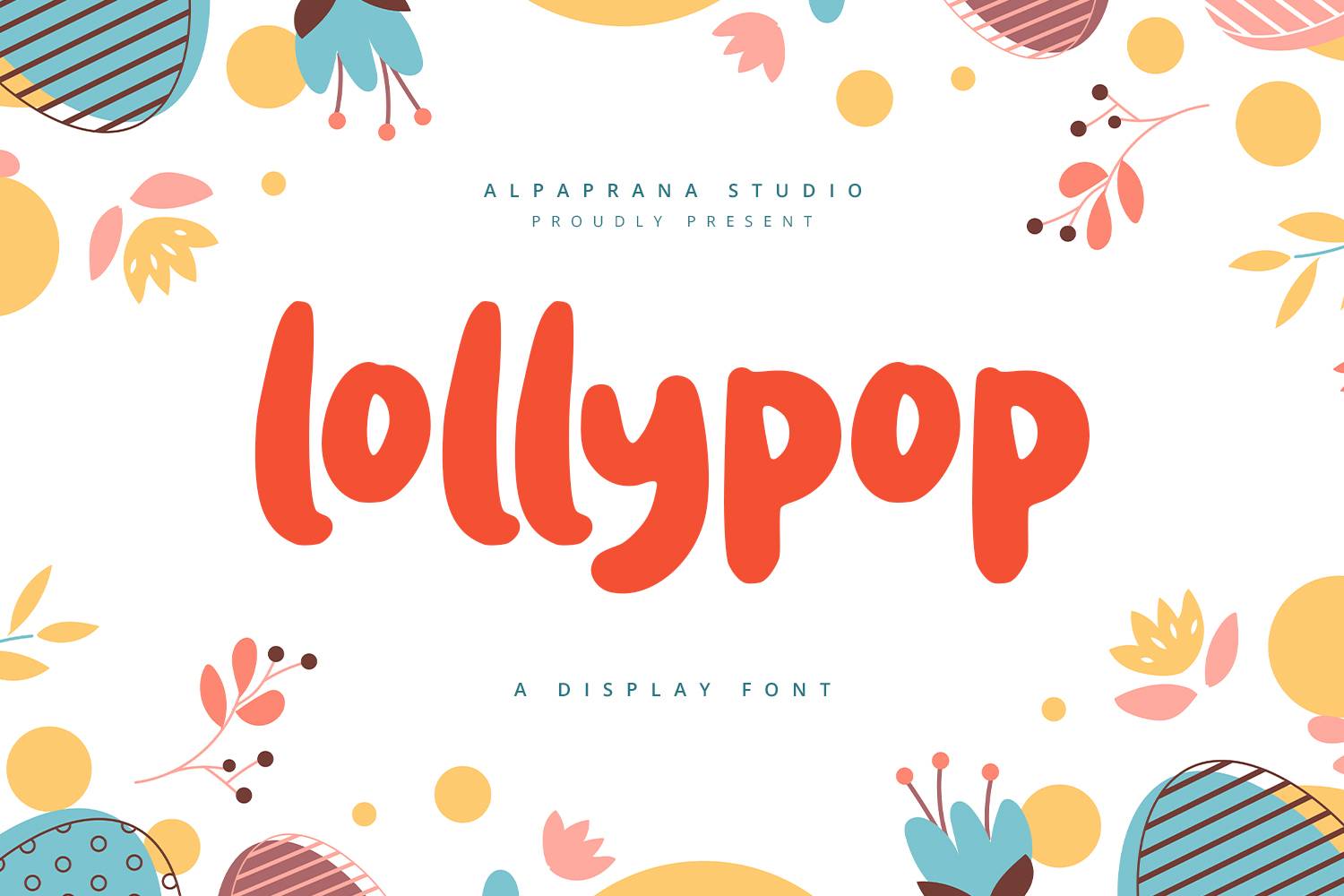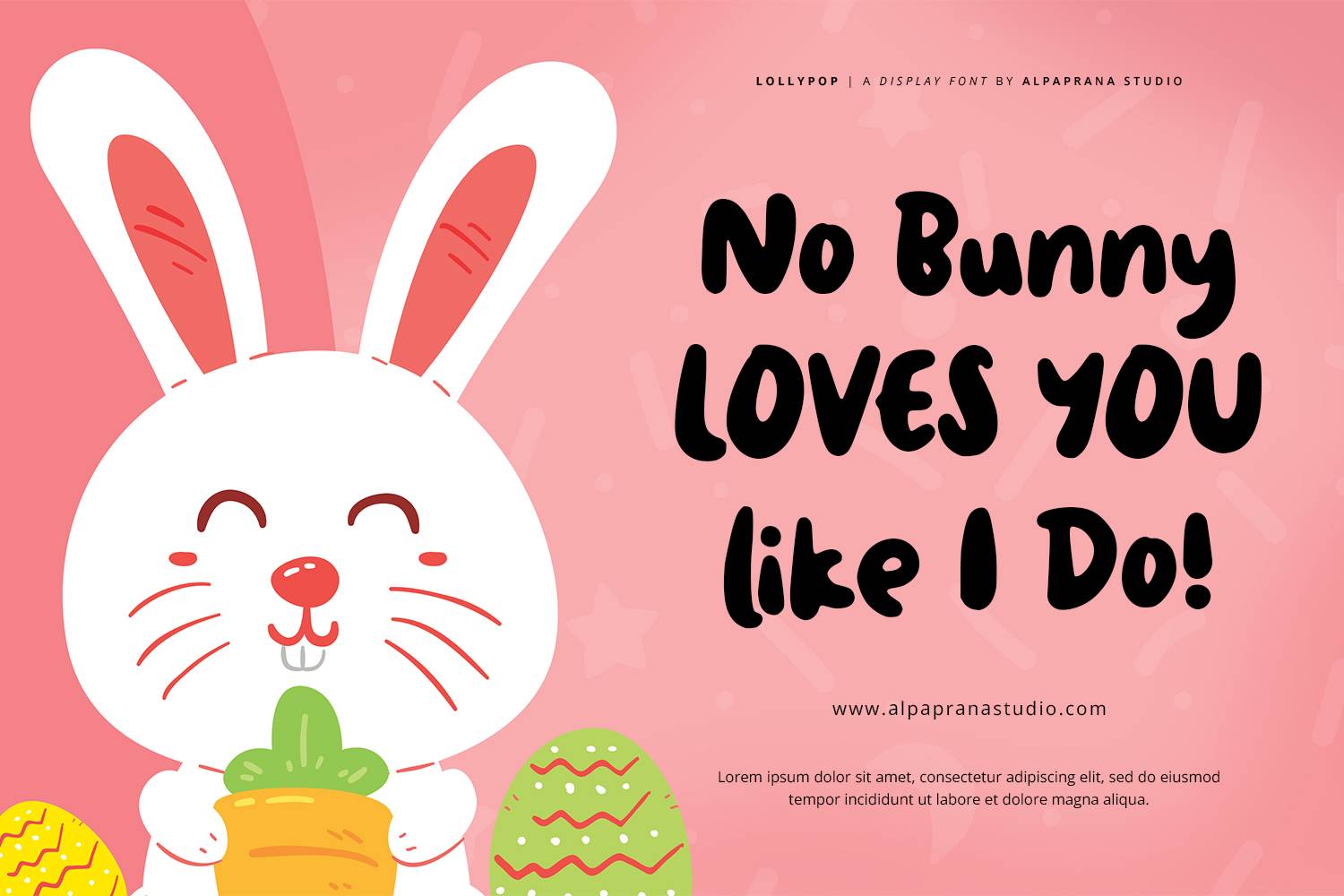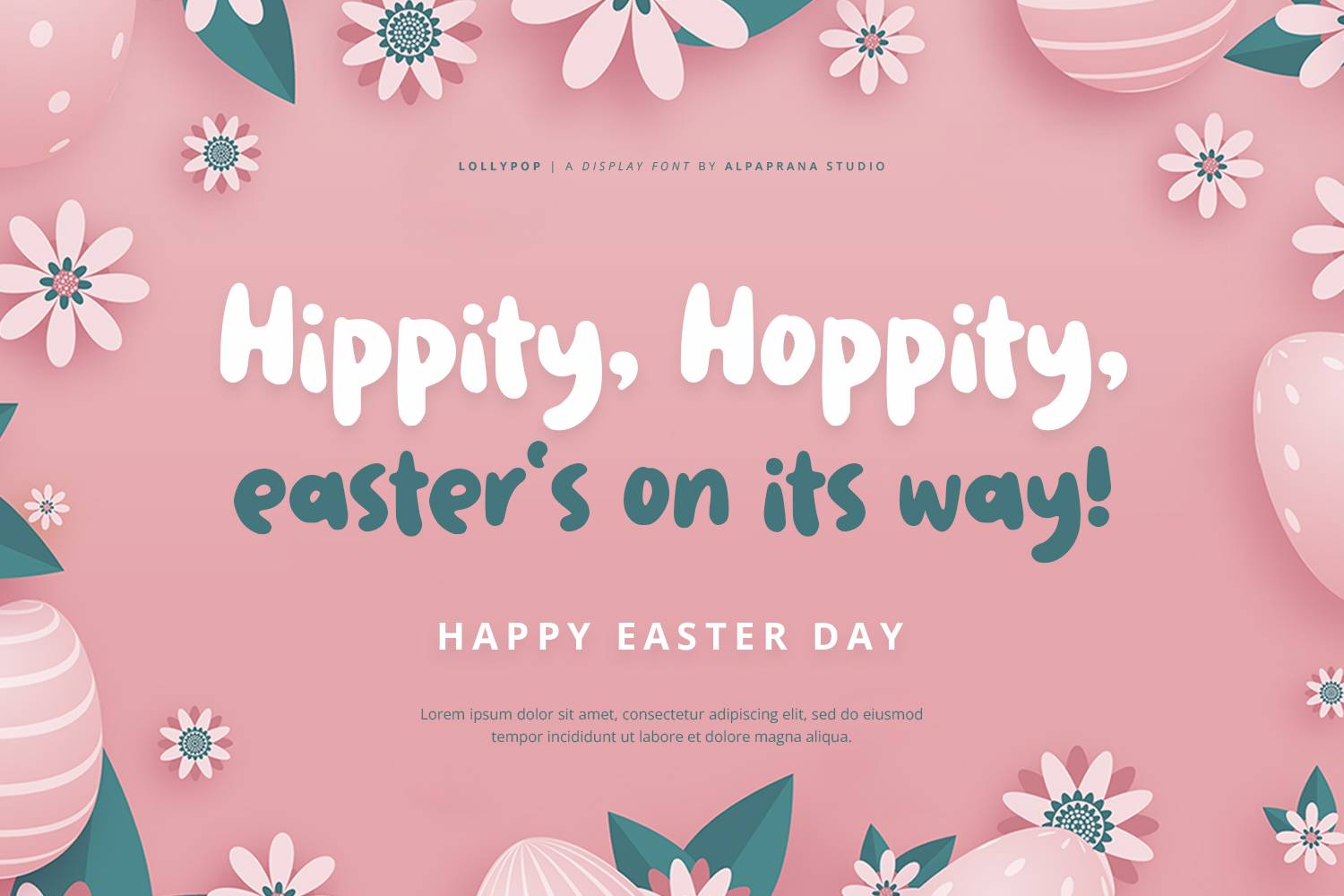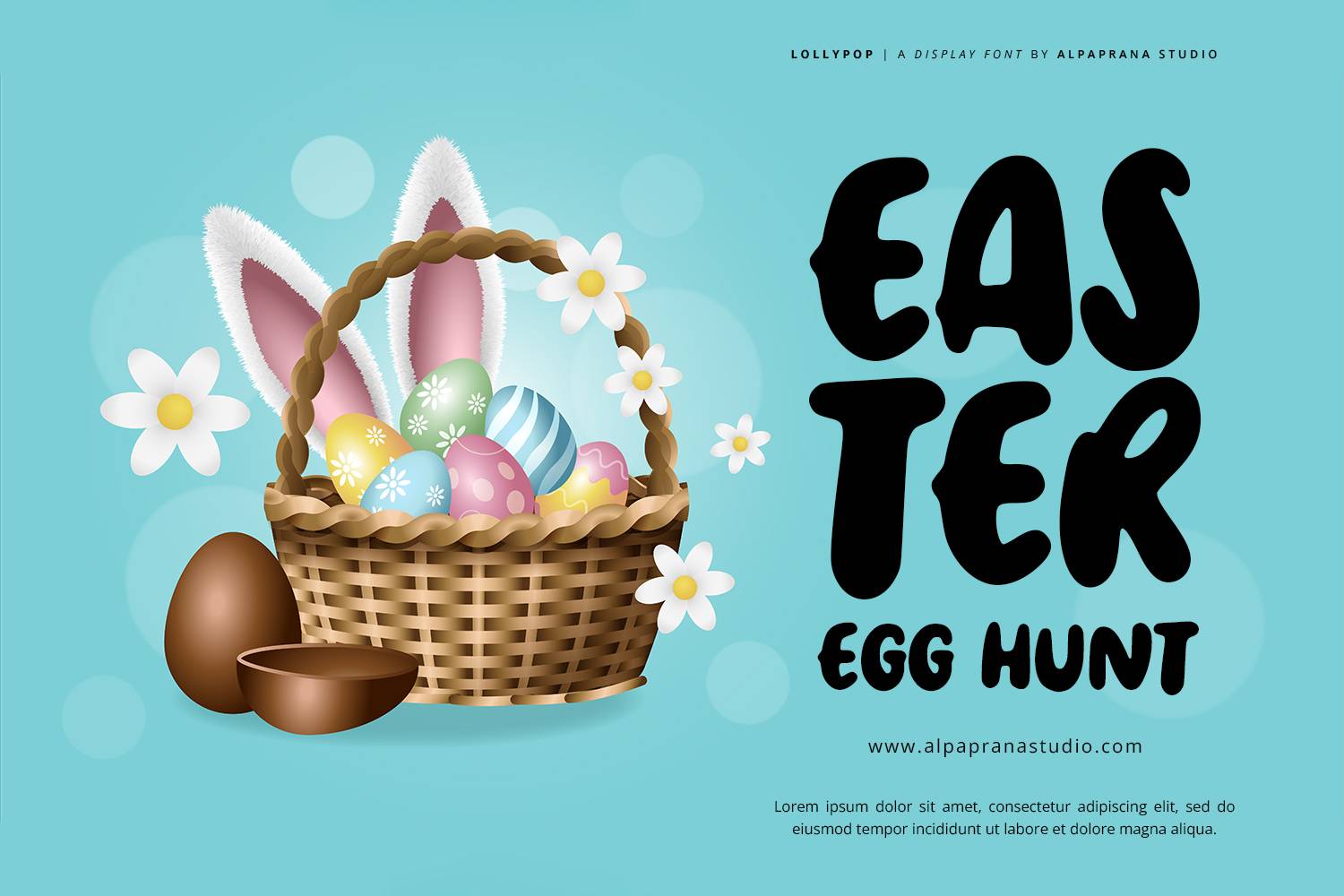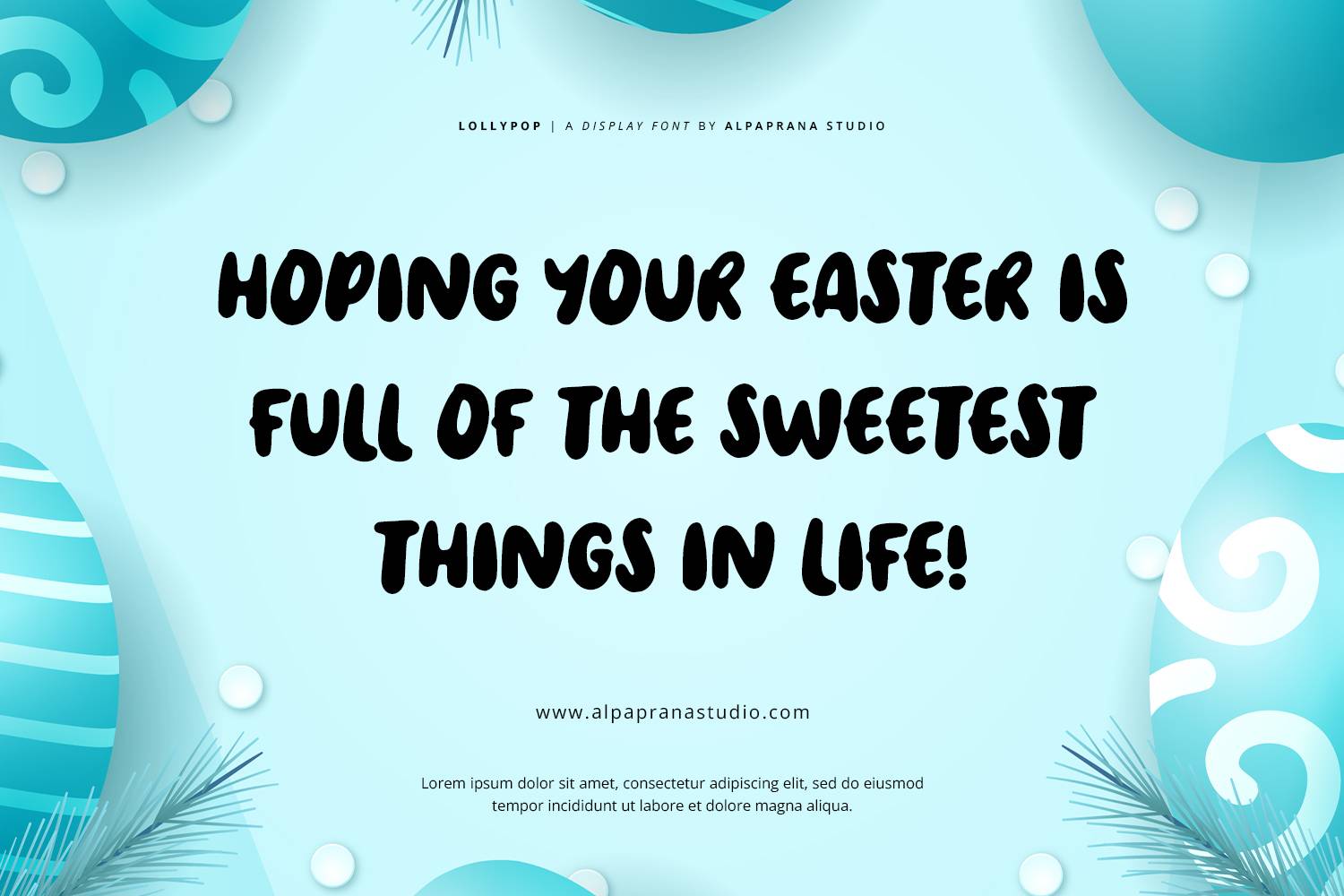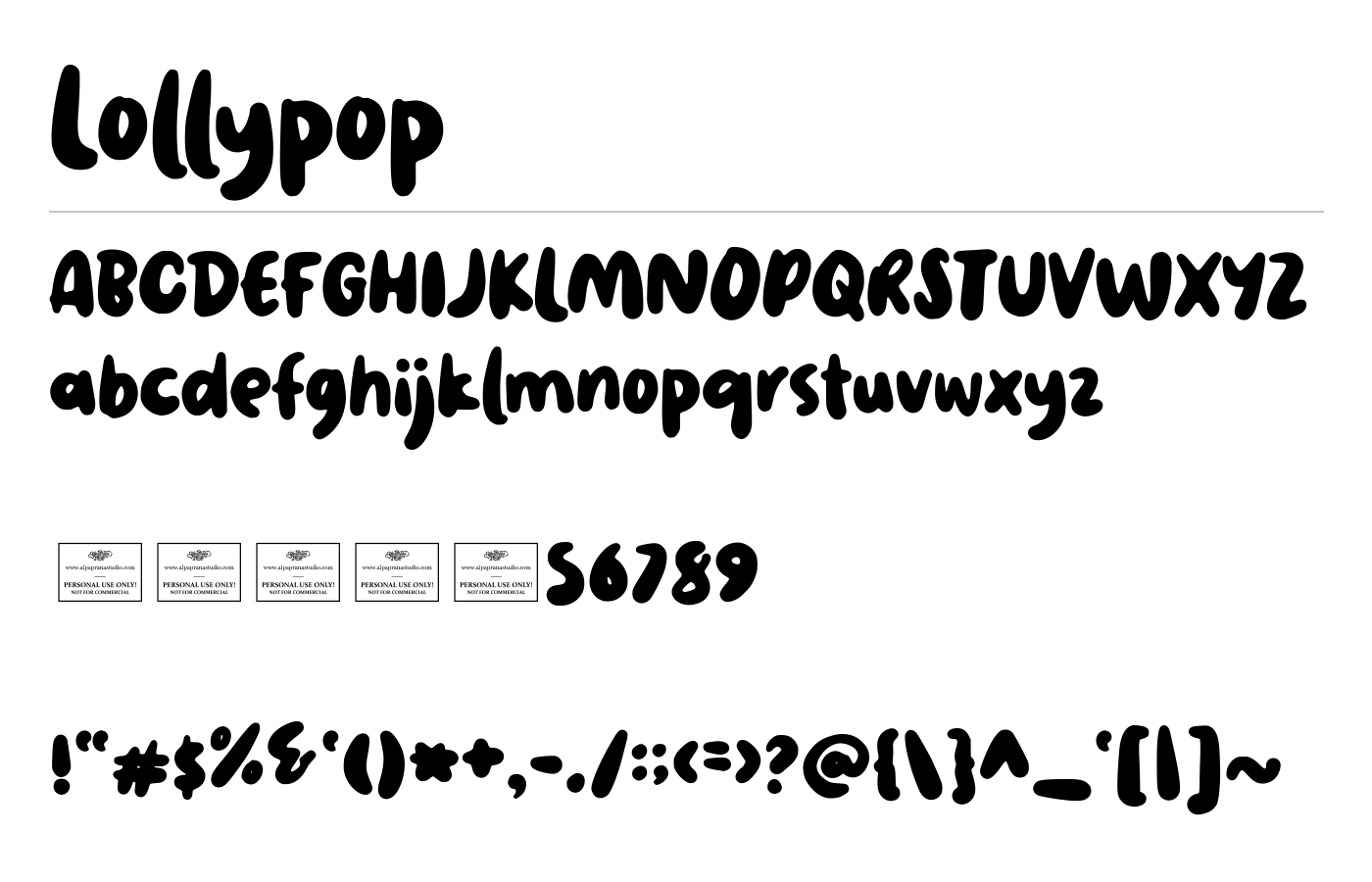
Lollypop is a playful and bold sans serif font featuring thick, rounded strokes and a soft, friendly appearance. Its casual, chunky letterforms with a handwritten feel make it perfect for fun, informal designs such as children’s books, party invitations, or quirky branding that wants to convey warmth and approachability. This font works best in headlines and display text where a lively and cheerful mood is desired.
Lollypop Font